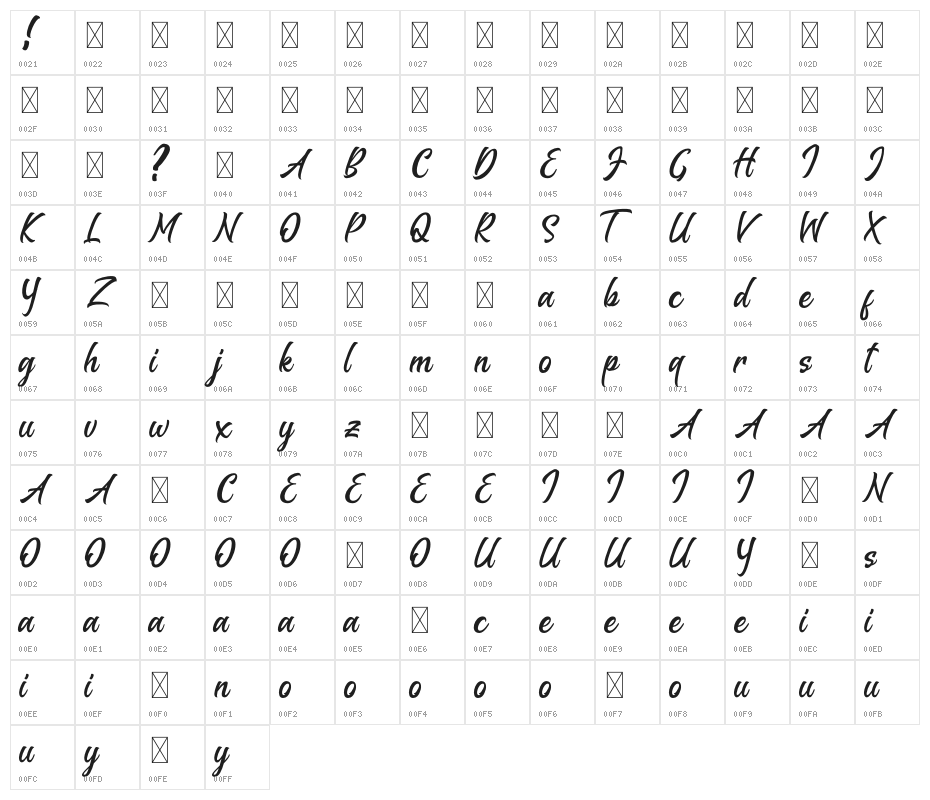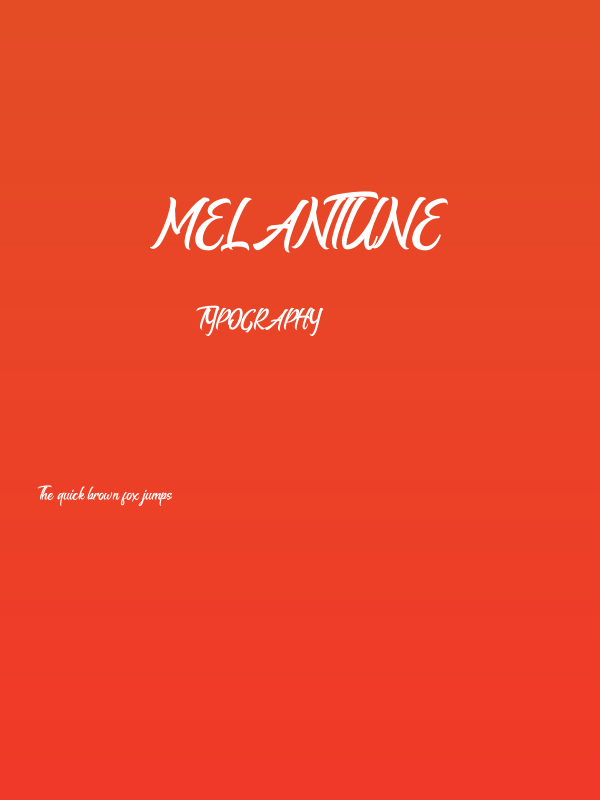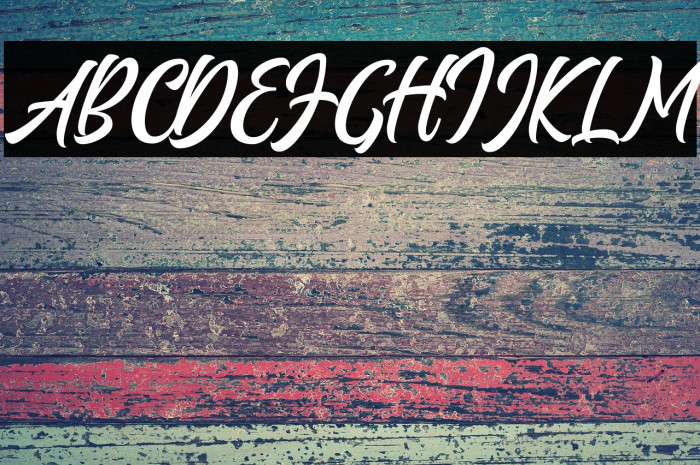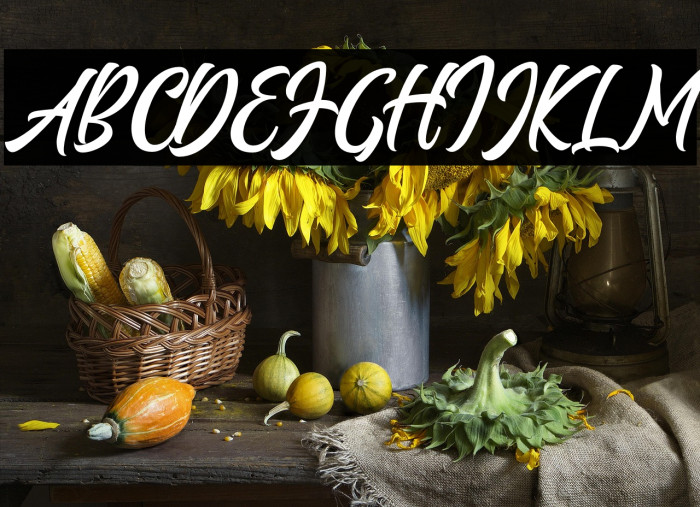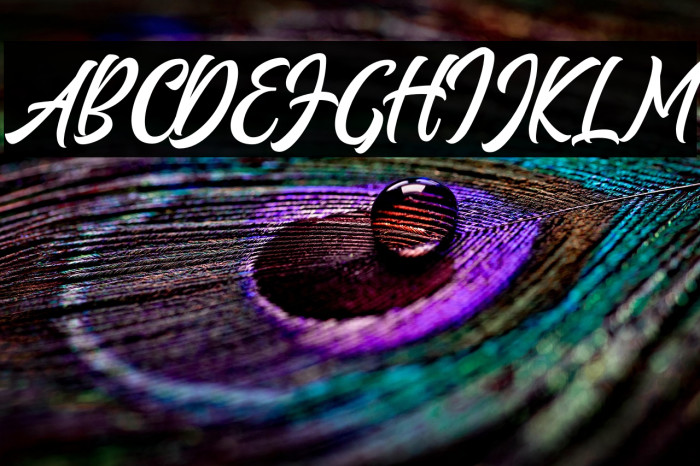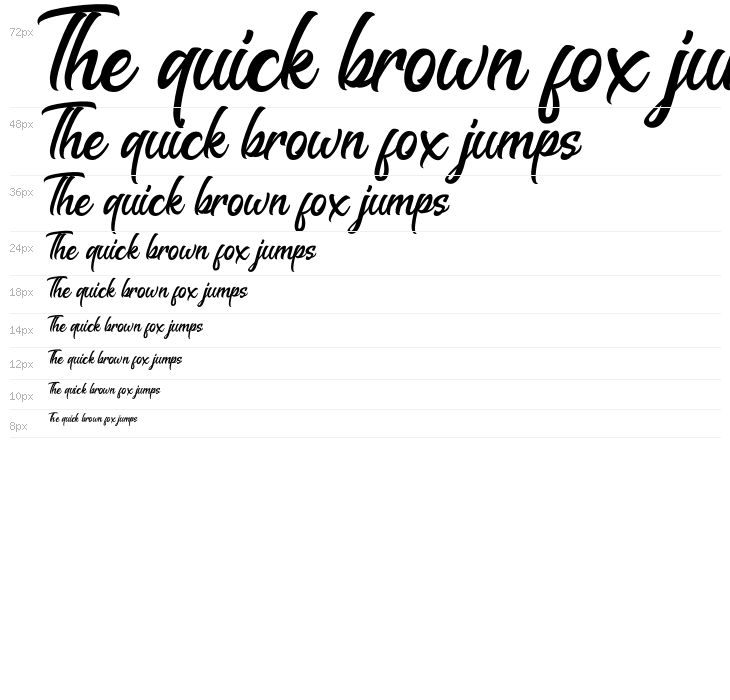
Melantune Font
Melantune Description
This font features a dynamic and flowing script style, characterized by its elegant and cursive letterforms. The uppercase letters exhibit a bold and confident presence, with sweeping curves and fluid connections that create a sense of motion and grace. The lowercase letters maintain this fluidity, offering a harmonious blend of rounded and angular elements. The overall design is both sophisticated and approachable, making it suitable for a variety of creative applications. The font's unique style is accentuated by its moderate contrast in stroke thickness, adding depth and visual interest to each character. The spacing between characters is balanced, ensuring readability while preserving the artistic flair of the script.